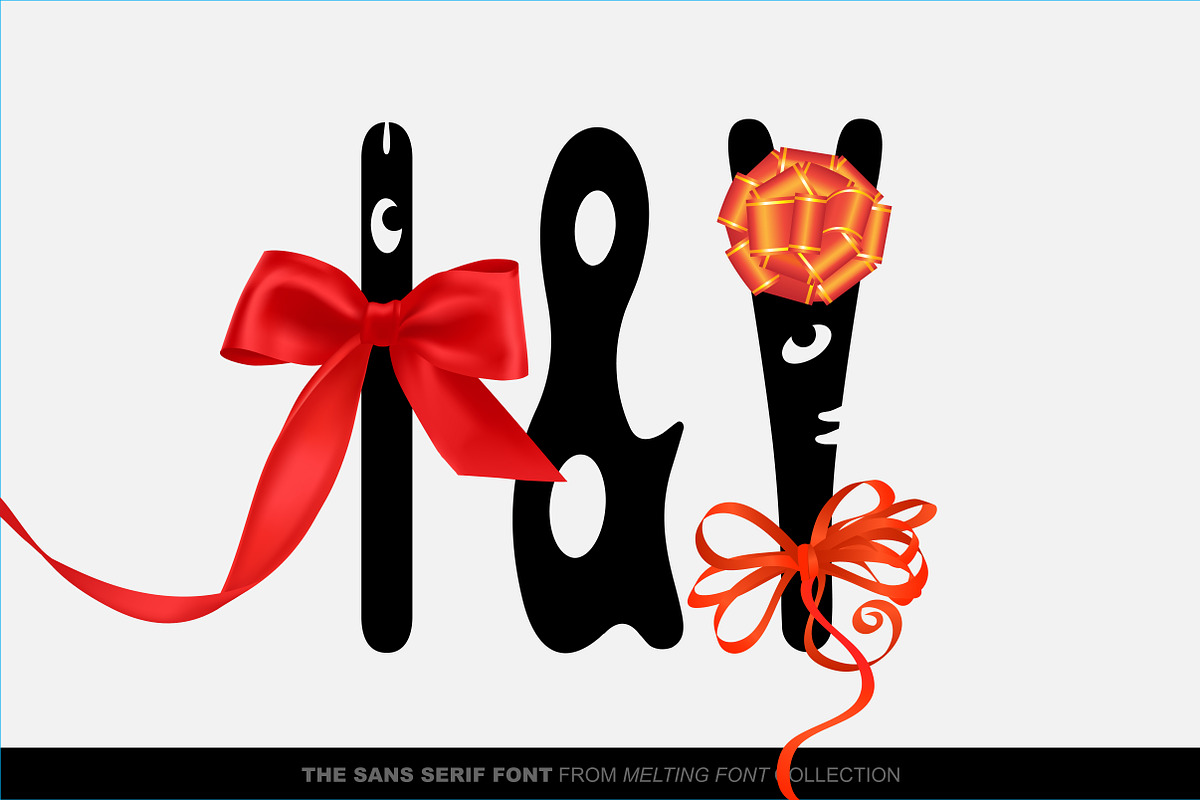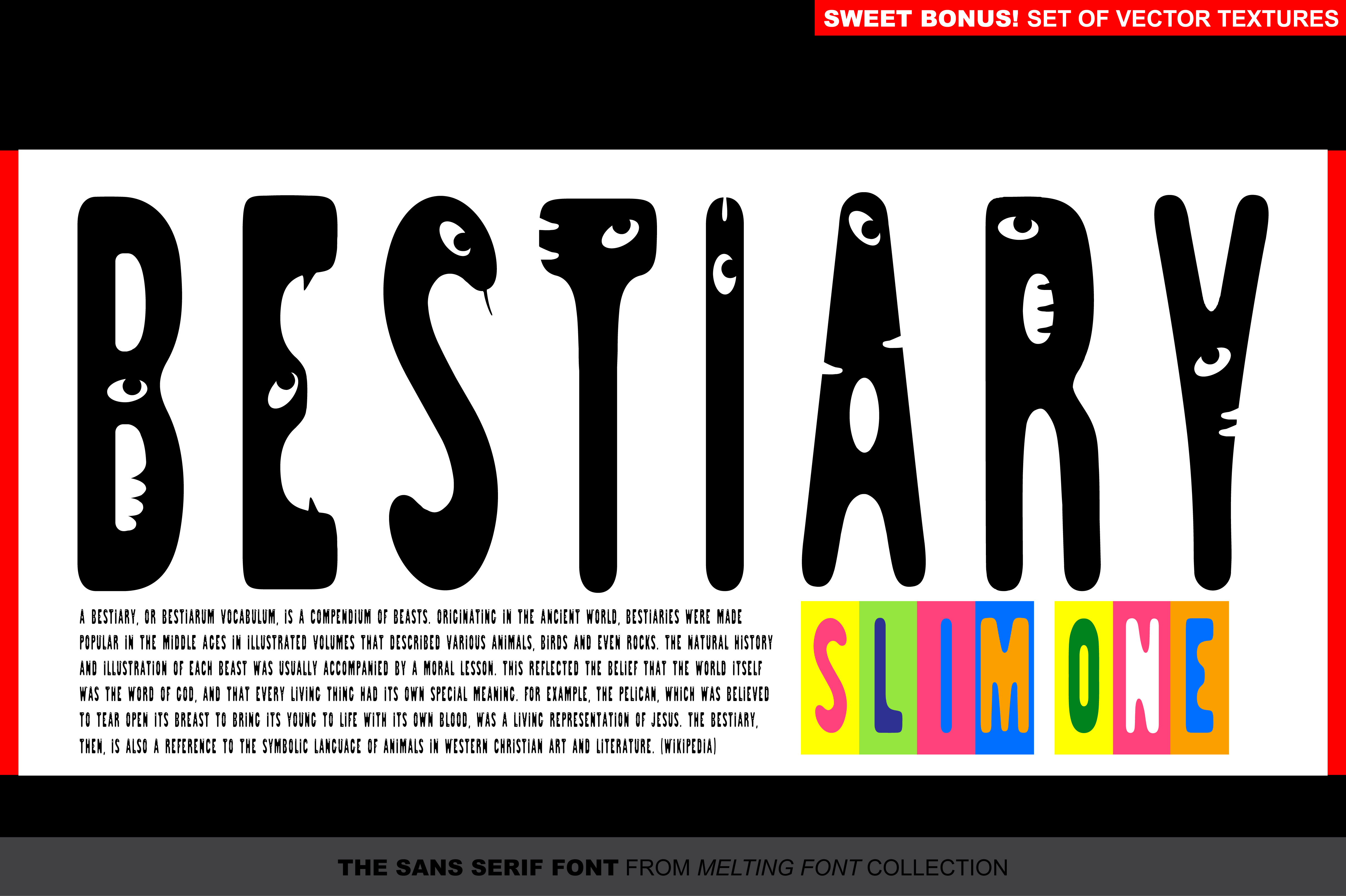
SlimOne Bestiary Decorative Font
We, GalaStudio (Lilia & Galina) represent the font SlimOne BESTIARY – the fourth from our new MELTING FONTS collection. Besides the regular version of SlimOne font, we designed a decorative one by playing with it, converting the glyphs to funny animals, and thus creating a zoo. You can use this decorative version of the font for children’s books and notebooks. Also, this fashionable font can be used in all kinds of advertising.
PERFECT FOR: using in books titles, textbooks, notebooks, different brochures and advertising, especially for kids, homeware design, packaging design; magazines, posters and flyers titles; logos design, books design, fashion design, slogans etc. :)
Multilingual support included for the languages based on Latin alphabet.